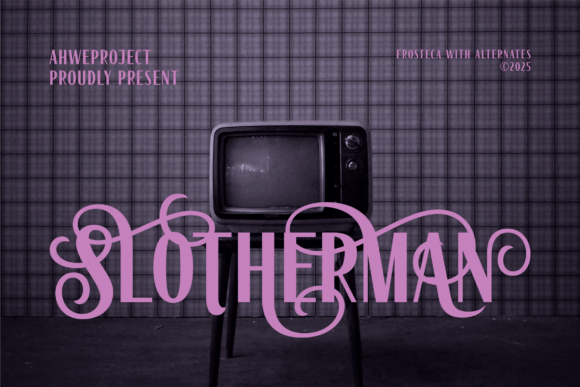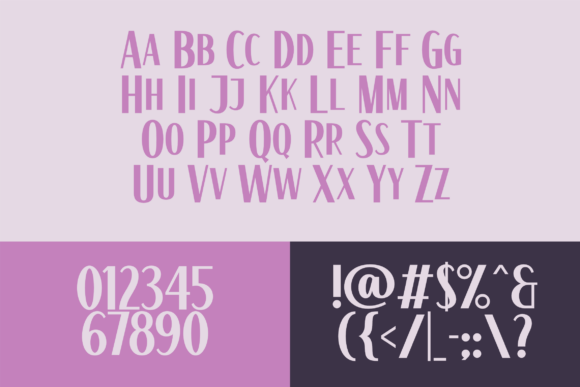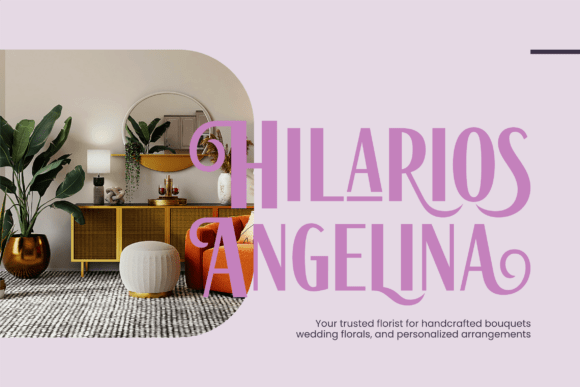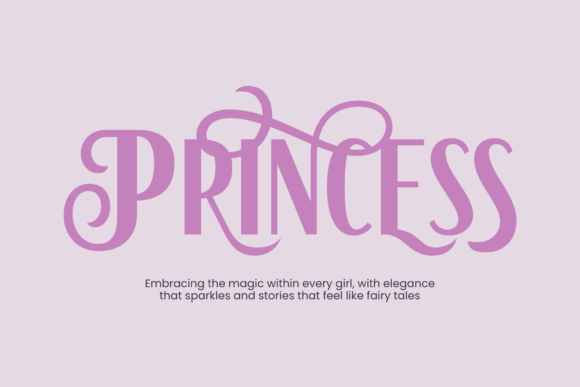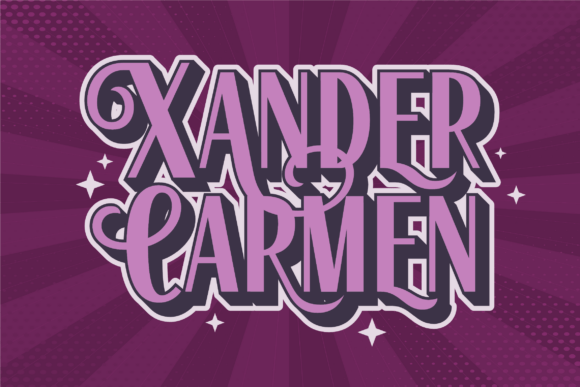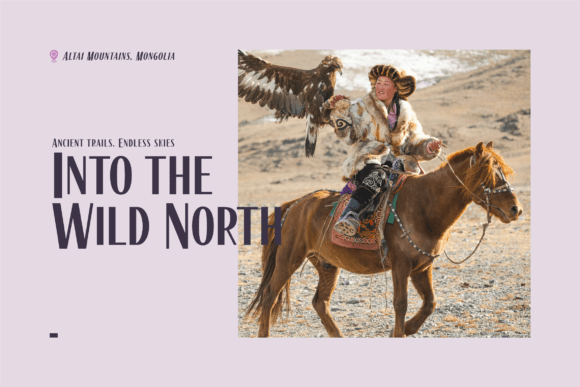
The Designer’s Dream Font: Frosteca
Have you ever been in the middle of a design project, and suddenly, you’re stuck on finding the perfect font? I recall a recent experience where I was working on a branding project for a luxury skincare brand. The client wanted a font that exuded elegance, creativity, and sophistication. After hours of scouring through font libraries, I stumbled upon Frosteca – a bold and artistic display font that instantly caught my attention.
First Impressions: A Love at First Sight
Frosteca is a game-changer for designers, crafters, and creative hobbyists looking to elevate their typography. This font combines clean sans serif structure with beautiful flourish alternates, making it perfect for designs that need a touch of elegance and creativity.
What I Love About Frosteca
- ✨ Versatility: Frosteca comes in 6 different styles, allowing you to experiment with various looks and feels.
- ✅ Alternate Characters: The font offers a wide range of alternate characters, making it easy to mix and match for unique designs.
- 💫 Elegant and Creative: Frosteca’s combination of clean sans serif and flourishes adds a touch of sophistication to any design.
- 👍 User-Friendly: The font is easy to use, even for those who are new to working with OpenType features and glyphs.
While Frosteca is an amazing font, there are a few minor quirks to be aware of:
- 🤔 Learning Curve: If you’re new to using OpenType features and glyphs, it may take some time to get familiar with Frosteca’s capabilities.
- ⚠️ Overuse: Due to its bold and artistic nature, Frosteca may not be suitable for body text or long paragraphs. Use it sparingly for headlines, titles, or emphasis.
Frosteca was designed with the intention of creating a font that combines elegance and creativity. The designer aimed to craft a font that would be perfect for luxury brands, high-end designs, and creative projects. With its unique blend of clean sans serif and flourishes, Frosteca is sure to make your typography stand out.
| Font Name | Frosteca Font |
| Author | ahweproject |
| What is Frosteca best used for? | Frosteca is ideal for logos, branding, headlines, packaging, posters, merchandise, and more. |
| Can I use Frosteca for body text? | While Frosteca is a beautiful font, it’s best used sparingly for headlines, titles, or emphasis. It may not be suitable for body text or long paragraphs. |
| Is Frosteca easy to use? | Yes, Frosteca is relatively easy to use, even for those who are new to working with OpenType features and glyphs. |